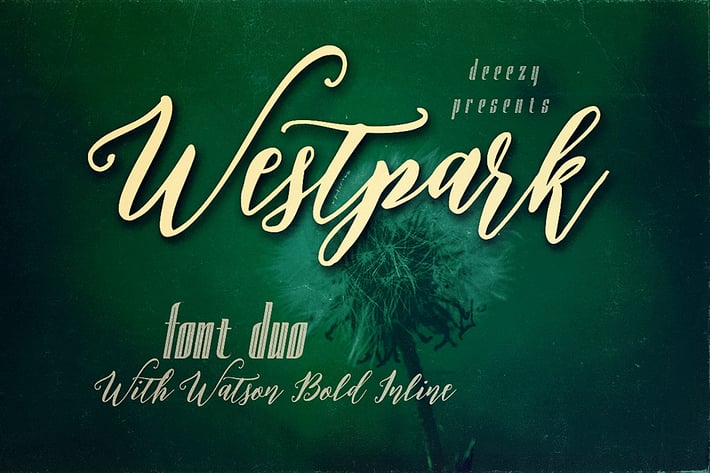
Westpark Script Font Duo
Cool and unique style font duo for your new projects. First font is handdrawn & modern brush style script font with multi language support and lot of stylistic alternates. Second font is inline & condensed sans serif display font with regular & grunge version (without multi language support).